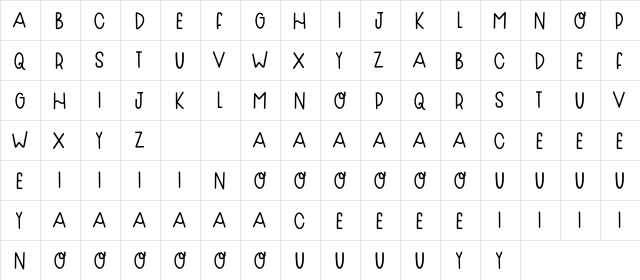
Lost In The Sky Regular
Design Context for Lost In The Sky Typeface
Lost In The Sky offers clean, dependable letterforms without strong stylistic allegiance, making it a practical choice for designers who need flexibility.
Pro Tip: Use Lost In The Sky in both headline and body roles to test its range before committing to a single application.